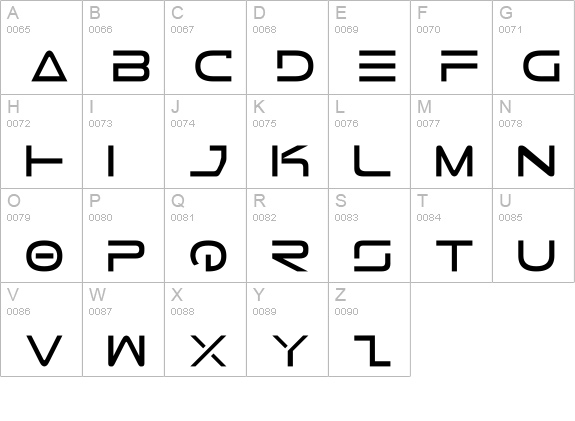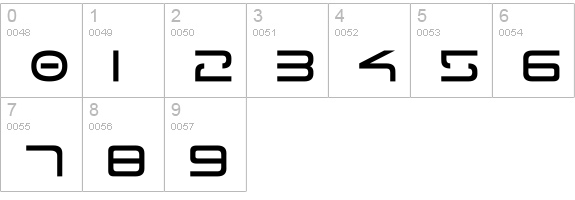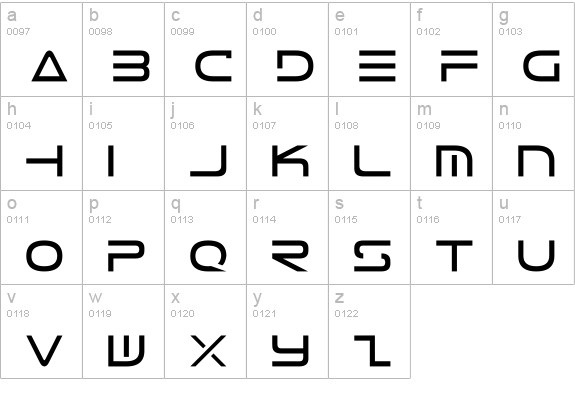
Tele-Marines font is a stunning display font that will bring an adventurous and bold touch to any design project. With its distinctive and powerful letterforms, this font is perfect for capturing attention and making a lasting impression. The sharp edges and unique details of Tele-Marines give it a futuristic and technological feel, making it ideal for designs related to science fiction, gaming, or any cutting-edge concept. One of the best things about Tele-Marines font is that it is available for free download at FontsMarket.com. This means that not only can you enjoy the striking aesthetics and versatility of this font, but you can also do so without breaking the bank. Whether you are a professional designer or a hobbyist, having access to high-quality fonts that don't cost a fortune is invaluable. The versatility of Tele-Marines font allows it to be used in a wide range of design projects. From eye-catching headlines to attention-grabbing logos, this font will add a unique and captivating element to any visual composition. Its bold and commanding presence demands attention, making it perfect for conveying strong and impactful messages. In addition to its visual appeal, Tele-Marines font is also highly legible, ensuring that your message is easily understood by your audience. Its clean and well-defined letterforms ensure that every word stands out with clarity, even at smaller sizes or in challenging design contexts. Whether you are designing for print or digital media, Tele-Marines font will elevate your creations to new levels of professionalism and style. So why wait? Download Tele-Marines font for free at FontsMarket.com and unlock the potential to create stunning and visually captivating designs that leave a lasting impression.